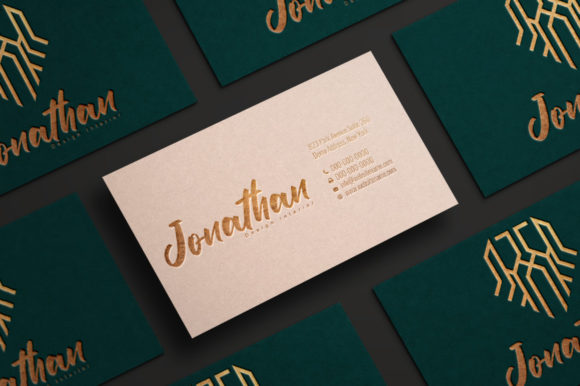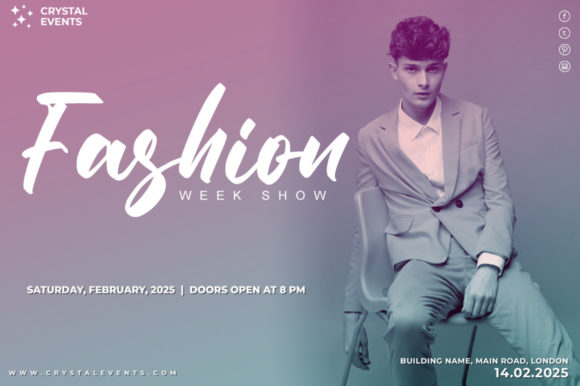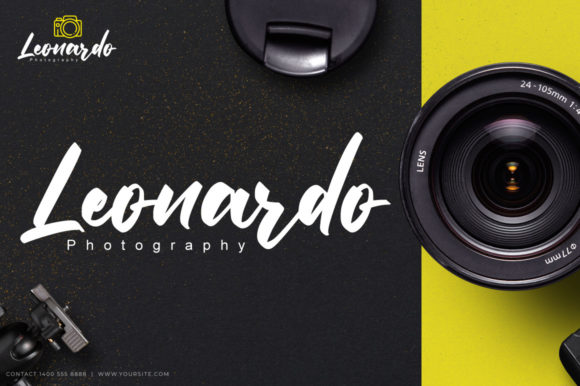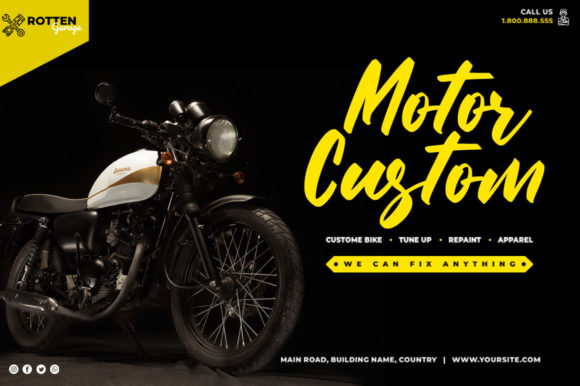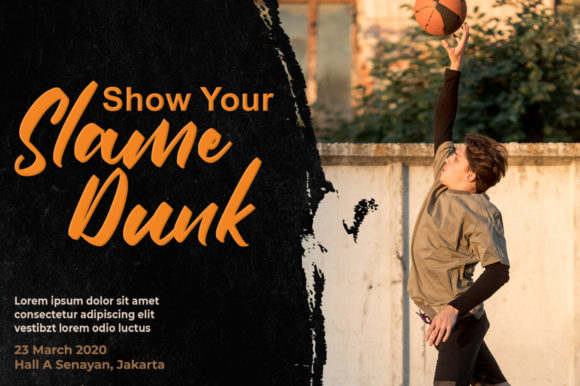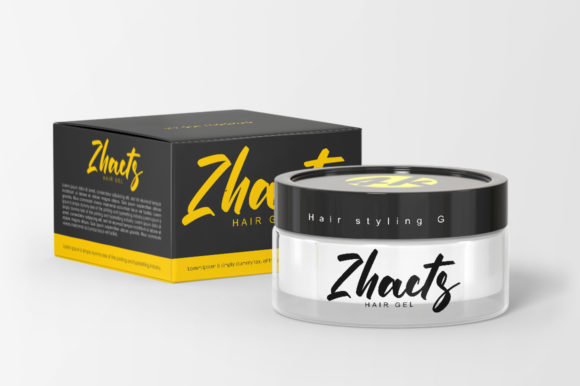
Bartolome Font: Elevate Your Designs with a Stylish and Confident Handwritten Style
In the world of typography, a good font can make all the difference in elevating your design projects from ordinary to extraordinary. If you’re on the hunt for a font that exudes strength, confidence, and a touch of nostalgia, look no further than Bartolome Font. This gorgeous and bold handwritten font is crafted to give your headlines and logotype projects a stylish touch that’s sure to turn heads.
The Characteristics of Bartolome Font
Bartolome Font is a true showstopper, boasting a unique blend of bold and dynamic characteristics that set it apart from other fonts. Its strong and confident appearance makes it perfect for headlines, logotypes, and any other design project where you want to make a statement. The font’s handwritten style also adds a touch of nostalgia and personality to your designs, making them feel more approachable and human.
What Makes Bartolome Font So Special?
So, what makes Bartolome Font so special? For starters, its bold and dynamic appearance is sure to grab attention and command respect. The font’s confident and strong personality makes it perfect for designers who want to add a touch of sophistication and elegance to their work. Additionally, the font’s nostalgic character is sure to evoke feelings of warmth and familiarity, making it perfect for projects where you want to create an emotional connection with your audience.
How to Use Bartolome Font in Your Designs
Using Bartolome Font in your designs is incredibly easy, and its versatility makes it perfect for a wide range of projects. Here are a few ideas to get you started:
- Headlines and Titles: Use Bartolome Font to create bold and eye-catching headlines that grab attention and draw the reader in.
- Logotypes and Branding: Create a lasting impression with a custom logotype that showcases your brand’s personality and style.
- Posters and Flyers: Add a touch of sophistication and elegance to your posters and flyers with Bartolome Font’s bold and dynamic appearance.
- Social Media Graphics: Elevate your social media graphics with a font that’s sure to stand out in a crowded feed.
Tips and Tricks for Getting the Most Out of Bartolome Font
To get the most out of Bartolome Font, here are a few tips and tricks to keep in mind:
- Experiment with Different Sizes: Don’t be afraid to experiment with different font sizes to find the perfect balance for your design.
- Play with Color: Bartolome Font looks great in a variety of colors, so don’t be afraid to get creative and try out different color schemes.
- Mix and Match: Combine Bartolome Font with other fonts to create a unique and visually appealing typography scheme.
| Font Name | Bartolome Font |
| Author | FatmaStudio |
In conclusion, Bartolome Font is a truly exceptional handwritten font that’s perfect for designers and crafters who want to add a touch of style and sophistication to their work. Its bold and dynamic appearance, combined with its nostalgic character, make it a versatile font that’s sure to elevate your designs to the next level. Whether you’re working on a headline, logotype, or social media graphic, Bartolome Font is sure to make a lasting impression.